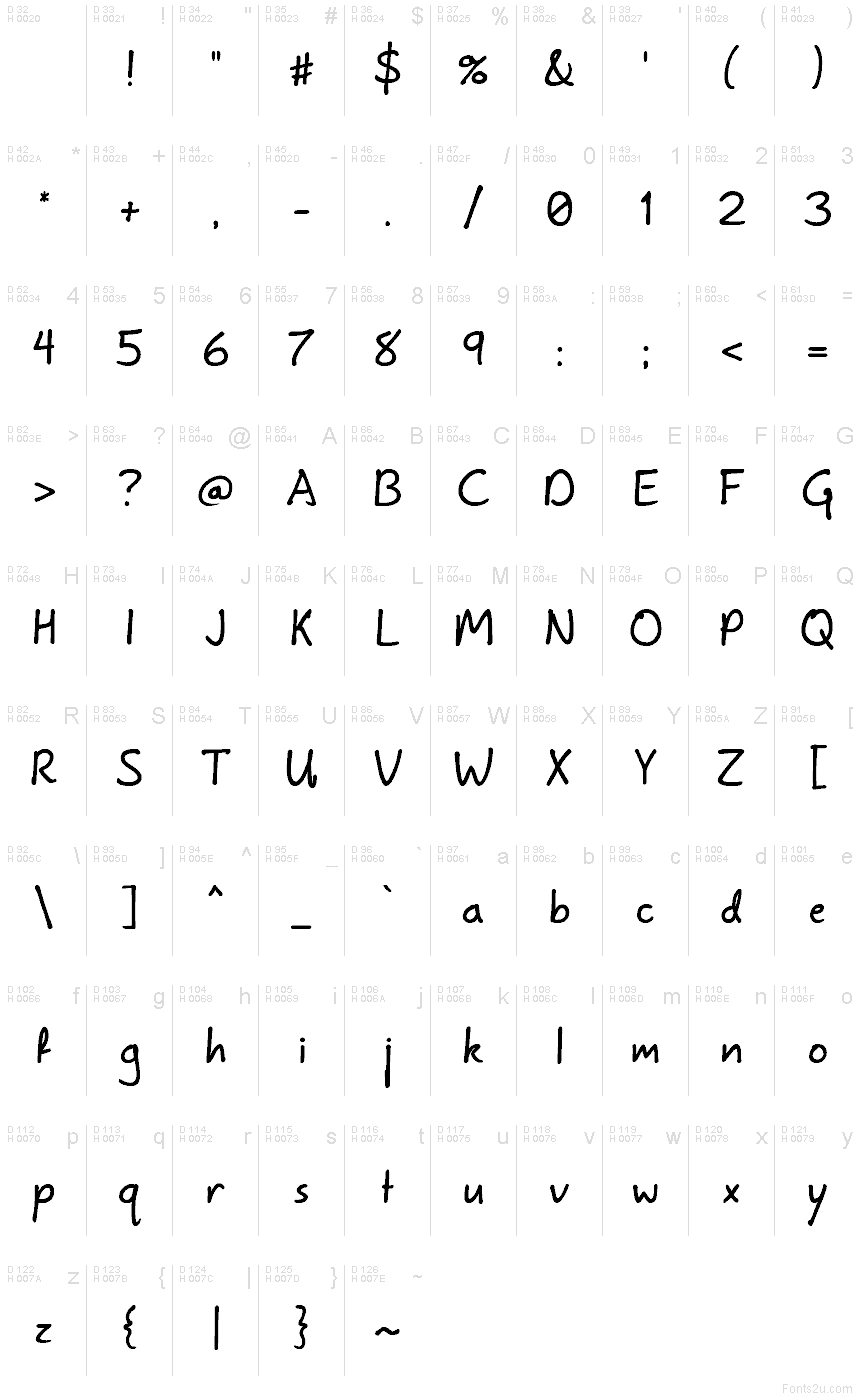
Levorotary Medium
Levorotary font by Samjokjak is a free handwritten typeface inspired by the authentic strokes of a felt-tip pen. Its casual, relaxed, and expressive characters bring an approachable look to the table with natural calligraphy that stops a moment in time and holds it for all to quietly appreciate.
With this unique hand-lettering style, enriching invitations, greeting cards, business cards, labels are easier than ever! Use Levorotary font for logos and poster designs or feature its unusual letters on social media platforms for enhanced content presentation.